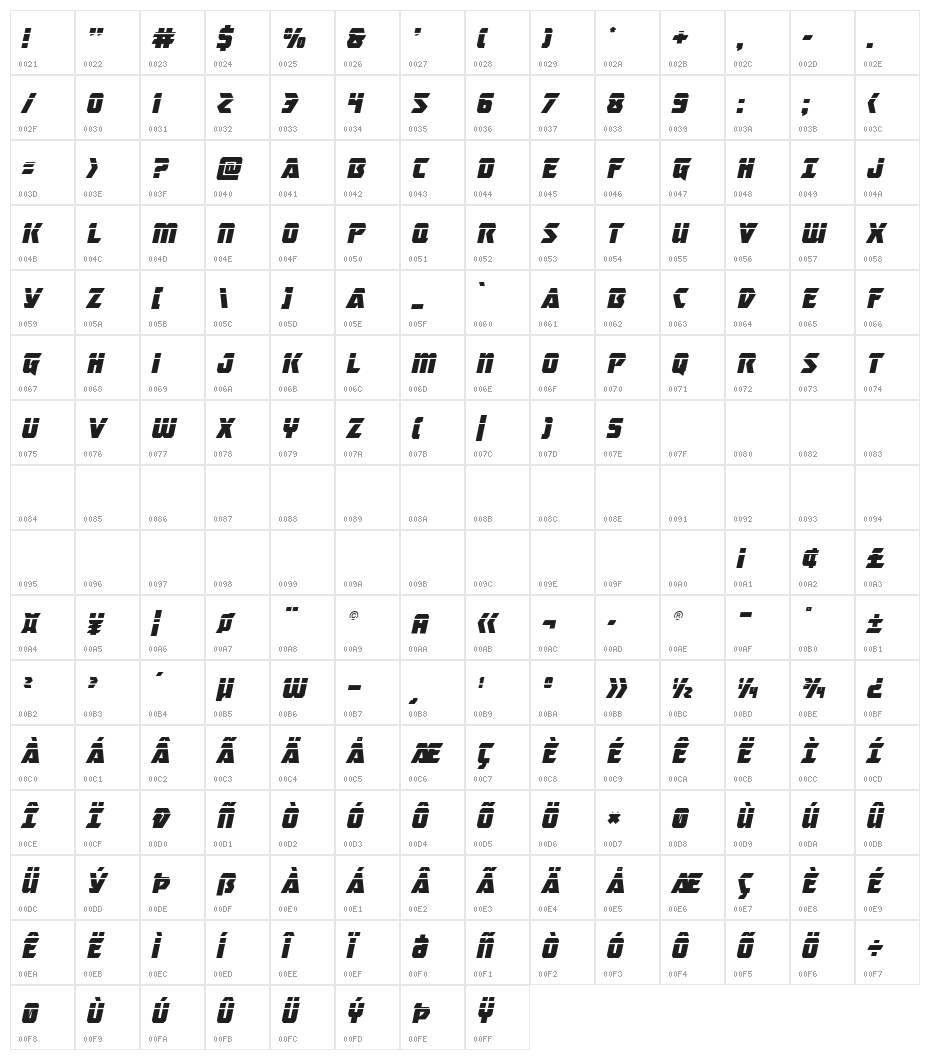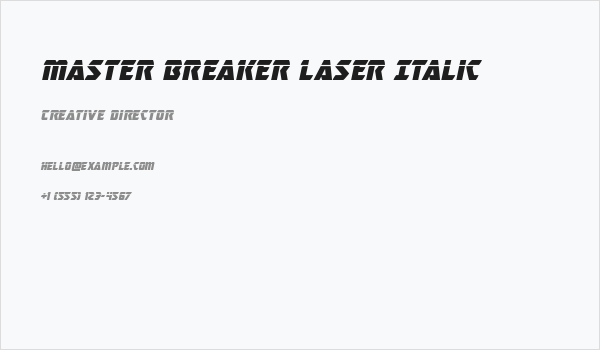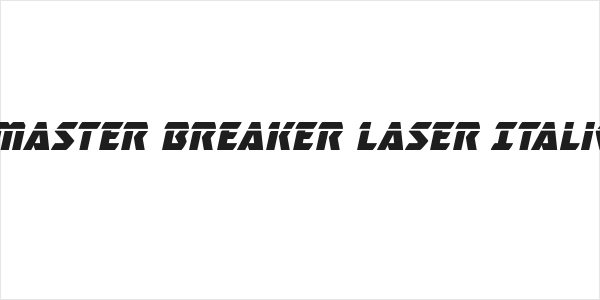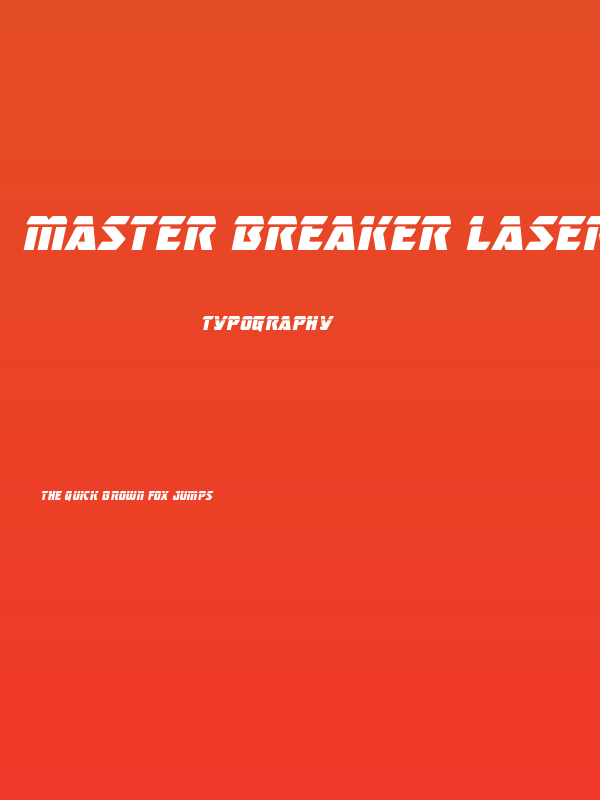
Master Breaker Laser Italic Font
Master Breaker Laser Italic Description
This font features a bold, angular design with a futuristic and dynamic aesthetic. The characters are sharply cut with a distinct slant, giving them a sense of motion and energy. The uppercase and lowercase letters maintain a consistent style, with thick strokes and geometric shapes. The numbers and special characters follow the same design principles, ensuring uniformity across all glyphs. This font is highly legible despite its decorative nature, making it suitable for impactful and attention-grabbing text.
| Proposed Projects | Ideal for sci-fi themed projects, video game titles, posters, and branding that requires a modern and energetic look. |